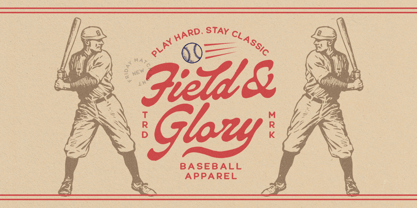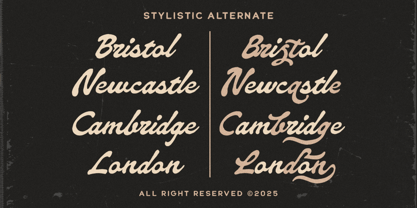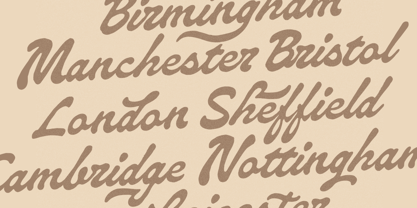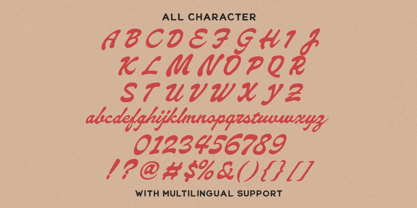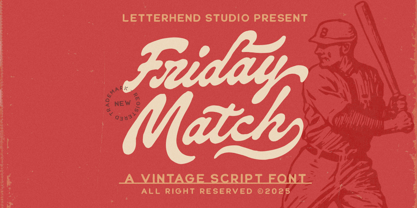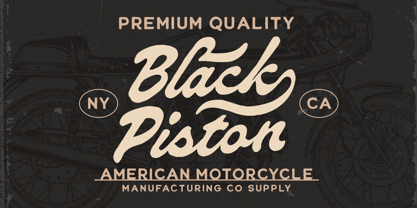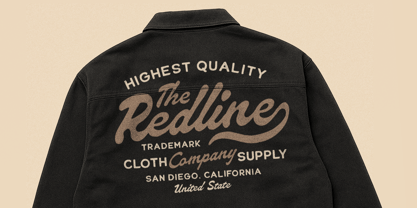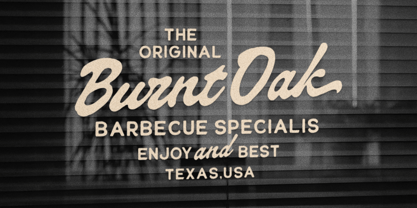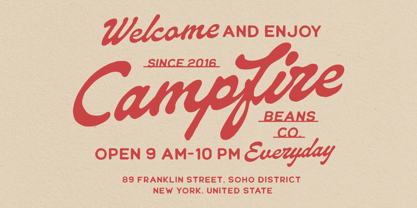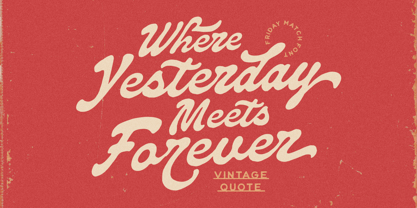
Friday Match
by Letterhend
The Friday Match Font Family was designed by Hendry Juanda and published by Letterhend. Friday Match contains 1 styles. More about this family
Friday Match carries a warm, nostalgic energy with its smooth, looping script and bold vintage flair, echoing the charm of classic sports posters and mid-century sign-painting. This font brings a cool, playful swagger to any project, delivering that old-school match-day excitement with modern polish—ideal for branding, posters, packaging, and anything that needs a stylish retro punch. Features : Uppercase & lowercase Numbers and punctuation Alternates & Ligatures Multilingual Support PUA encoded